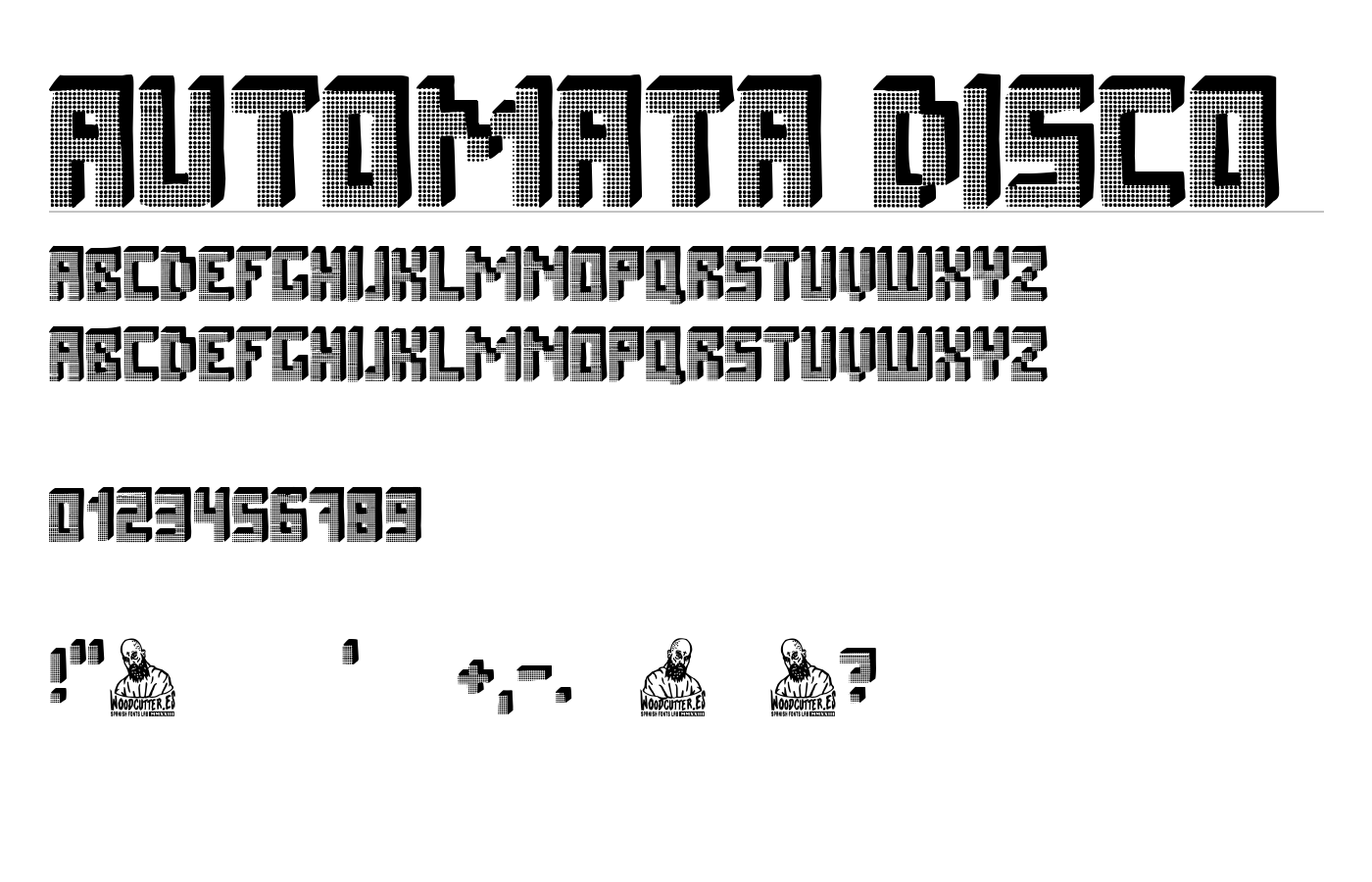
Automata Disco is a bold, geometric display font with a striking retro-futuristic vibe. Its heavy weight, blocky shapes, and halftone dot pattern evoke a lively, techno-disco atmosphere, making it perfect for eye-catching headlines, posters, and branding that wants to channel energy and vintage digital style. This font shines in creative projects where a strong, dynamic, and playful statement is needed.
Automata Disco Font
About Automata Disco Font